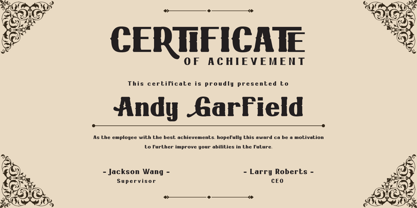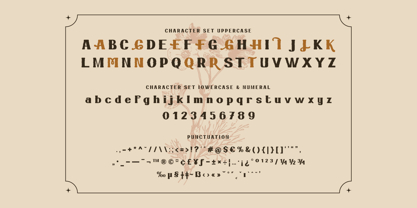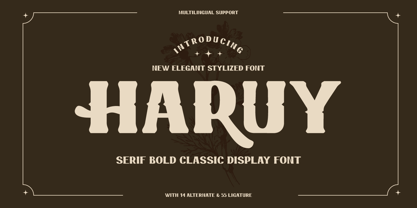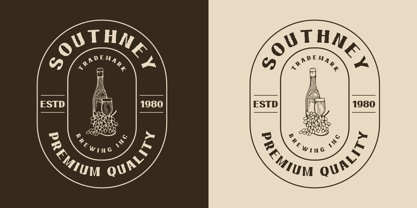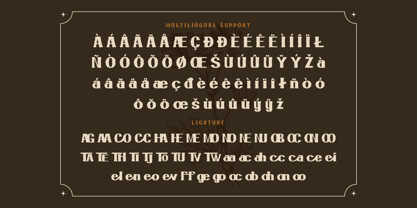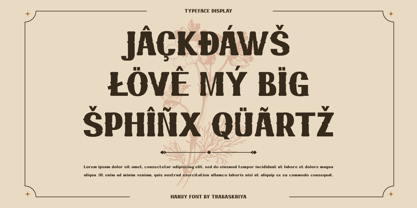
Haruy
by Trabas Kriya
The Haruy Font Family was designed by Murozakul Akhsan and published by Trabas Kriya. Haruy contains 1 styles. More about this family
Haruy is a font that commands respect. This serif bold font combines classic style with modern design, creating a look that is both timeless and contemporary. Its bold, elegant serifs make it perfect for creating eye-catching headlines and logos that demand attention. With Haruy, your designs won’t just be seen, they’ll be respected.
- All glyphs and Feature
- Fonts include Multilingual: Support for 85 languages.
Designers: Murozakul Akhsan
Foundry: Trabas Kriya